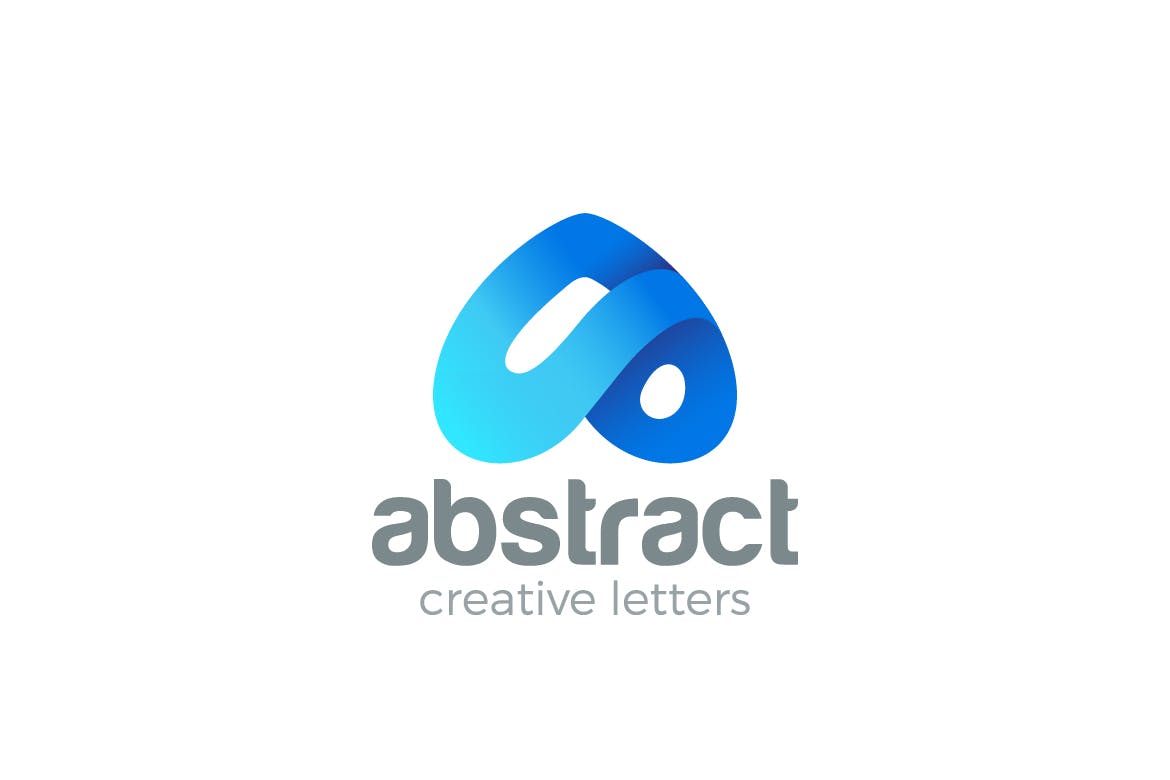
Logo Letter A Creative Design
Logo Letter A Creative Design – Bold, Unique & Memorable Brand Identity
The letter "A" is not just a letter—it’s a symbol of excellence, ambition, and the starting point of something great. The Logo Letter A Creative Design transforms this simple letter into a bold, artistic, and eye-catching logo that sets your brand apart from the competition.
Perfect for startups, creative agencies, consulting firms, fashion brands, and personal brands, this design turns the letter "A" into a versatile icon that can embody sophistication, innovation, or playfulness depending on your style.
Crafted as a vector logo, it guarantees sharpness and scalability across all platforms—whether it’s used on business cards, websites, merchandise, or large-scale advertising. The design can be customized with unique shapes, colors, and effects to perfectly match your brand’s personality.
The Logo Letter A Creative Design combines simplicity with innovation, making your brand instantly recognizable and memorable. It reflects leadership, creativity, and a forward-thinking approach—perfect for businesses that want to make a strong first impression.
In a world where brands compete for attention, a distinctive initial logo can be your secret weapon. This letter "A" design is both timeless and modern, giving your brand a unique edge that lasts.
Make your brand’s first impression count with a logo that’s as creative as your vision. With the Logo Letter A Creative Design, your brand starts strong—and stays unforgettable!